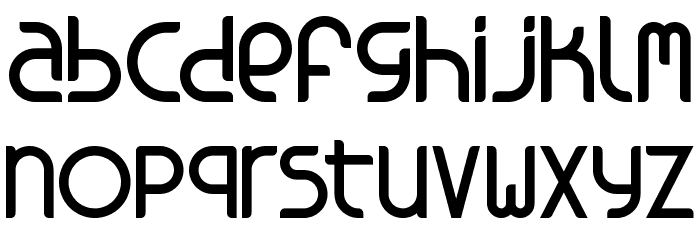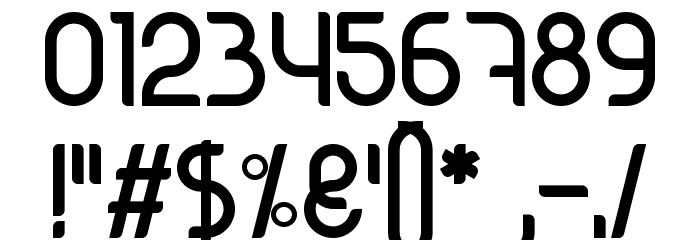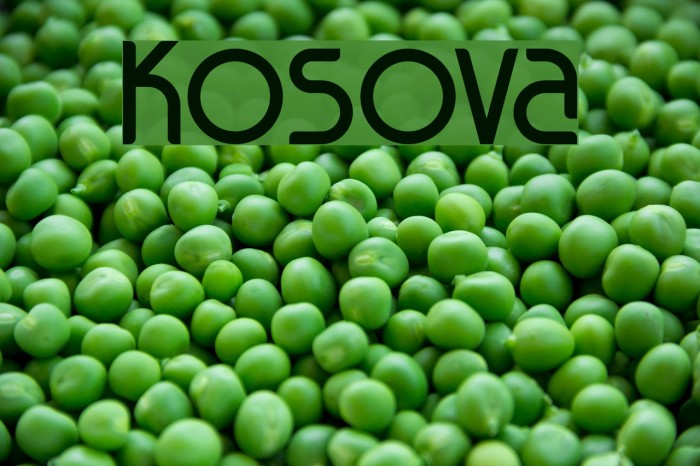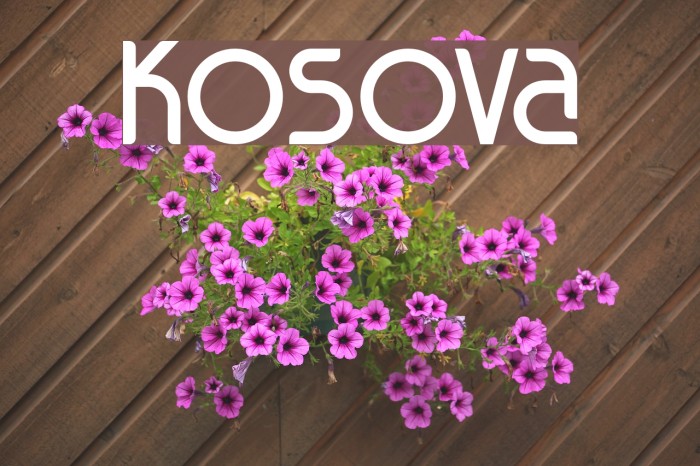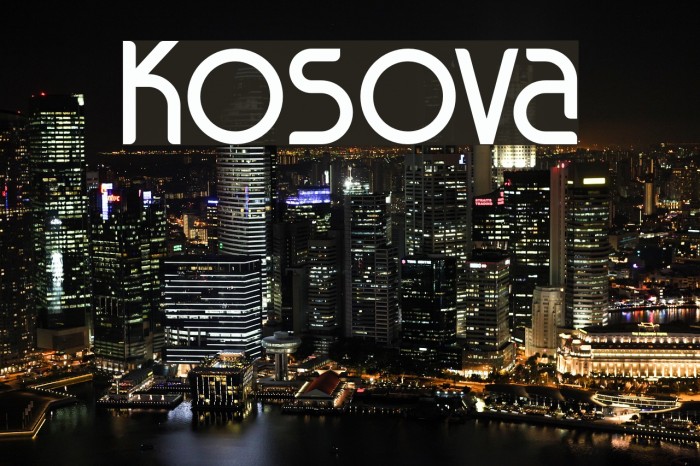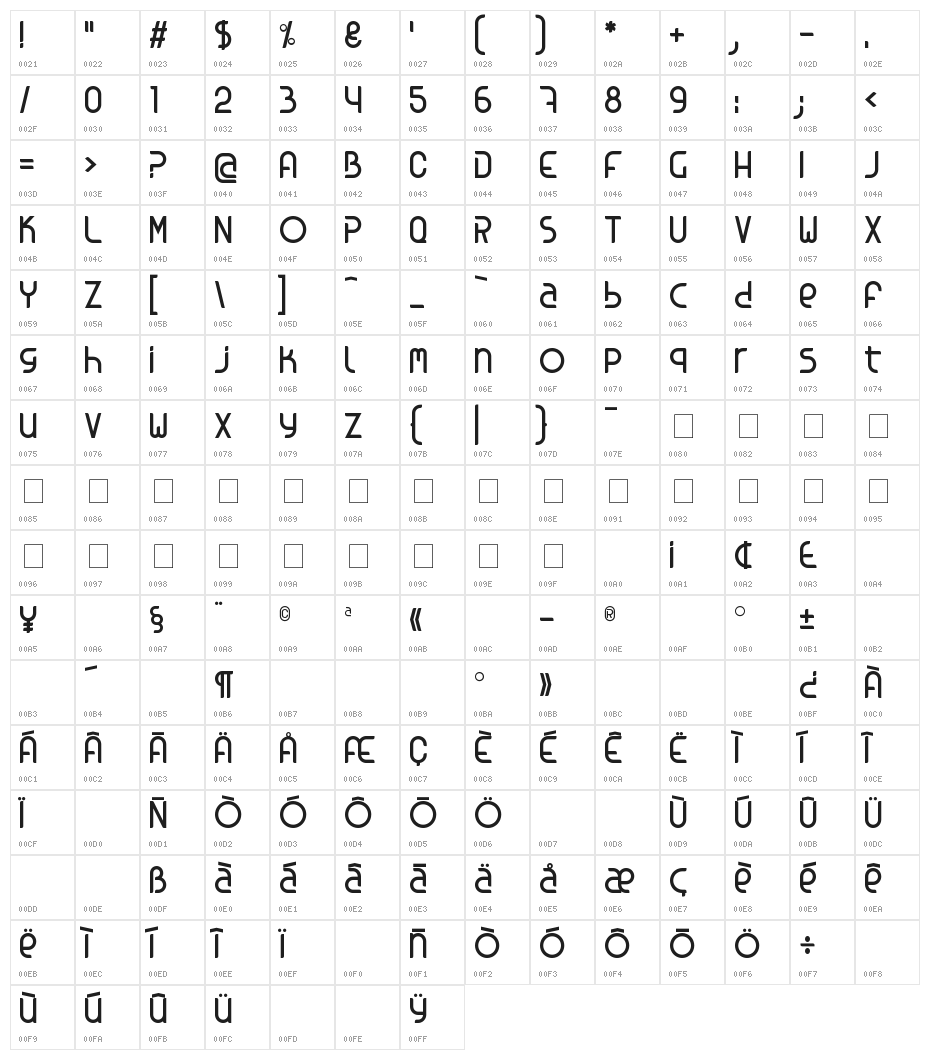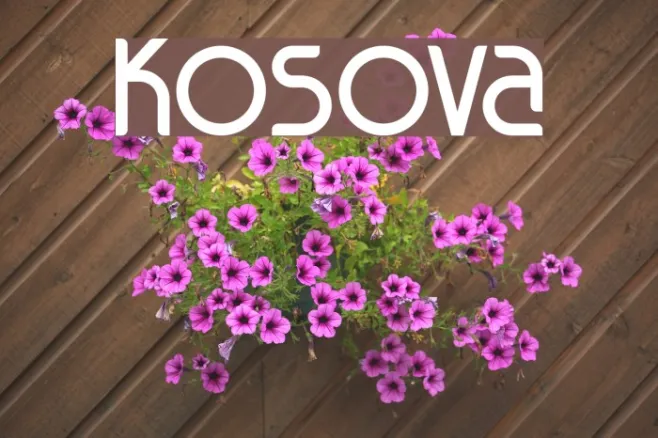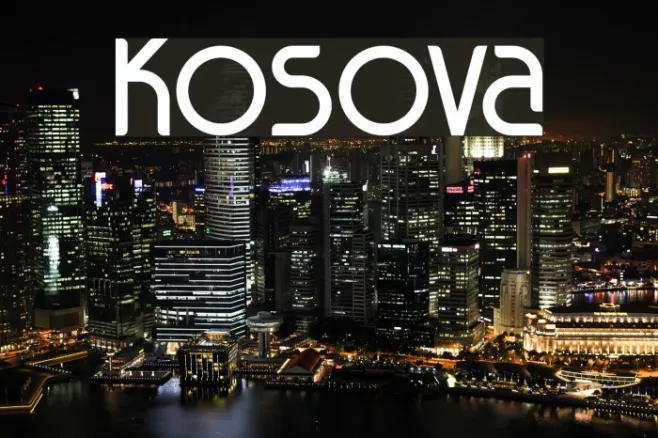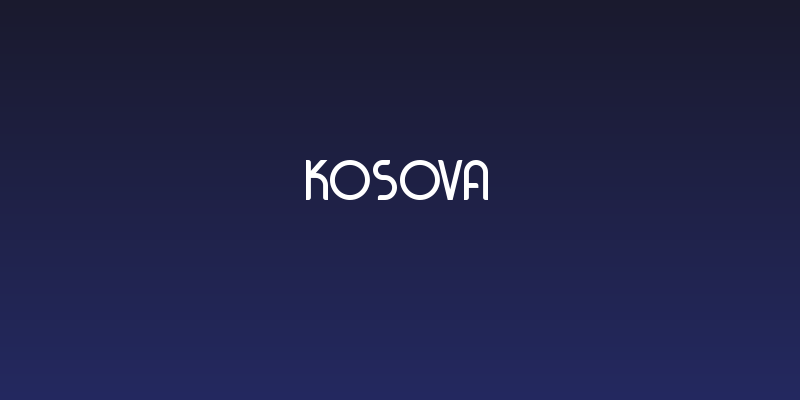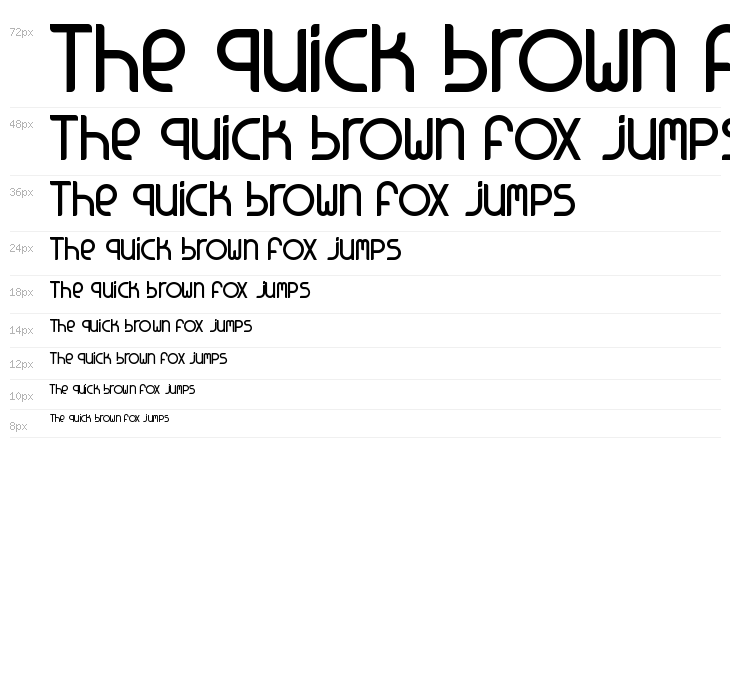
Kosova Font
This font features a modern and geometric design with rounded edges, creating a sleek and contemporary appearance. The characters are uniform in width, contributing to a clean and organized look. The uppercase and lowercase letters maintain a consistent style, with a slight variation in height to distinguish between them. The numerals are bold and easily readable, matching the overall aesthetic of the alphabet. Special characters are included, maintaining the same geometric and rounded style, ensuring versatility in various design applications. The font's unique style makes it suitable for projects that require a modern and futuristic touch.
A modern, geometric font with rounded edges and uniform width.
- Proposed Projects: Ideal for tech branding, modern posters, digital interfaces, and futuristic designs.
- Use Case: Logos, Headlines, Digital Interfaces